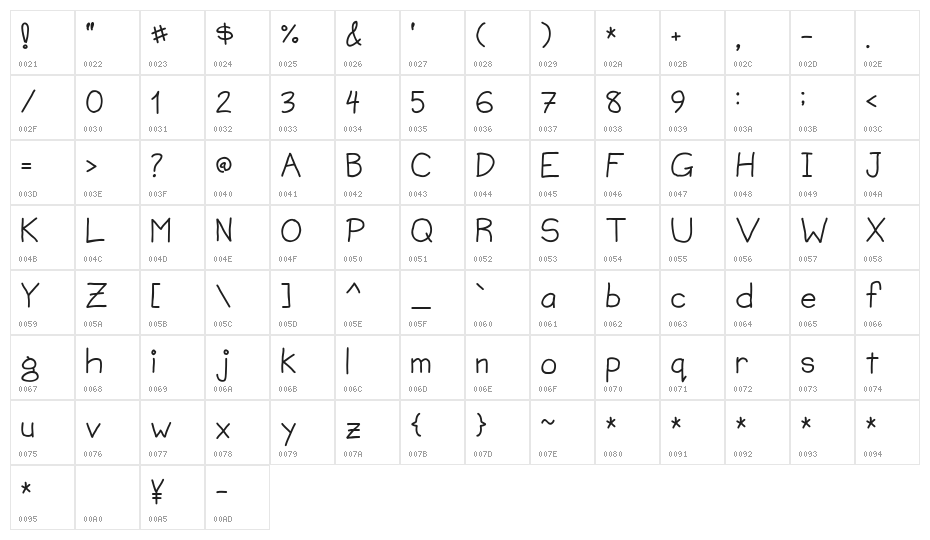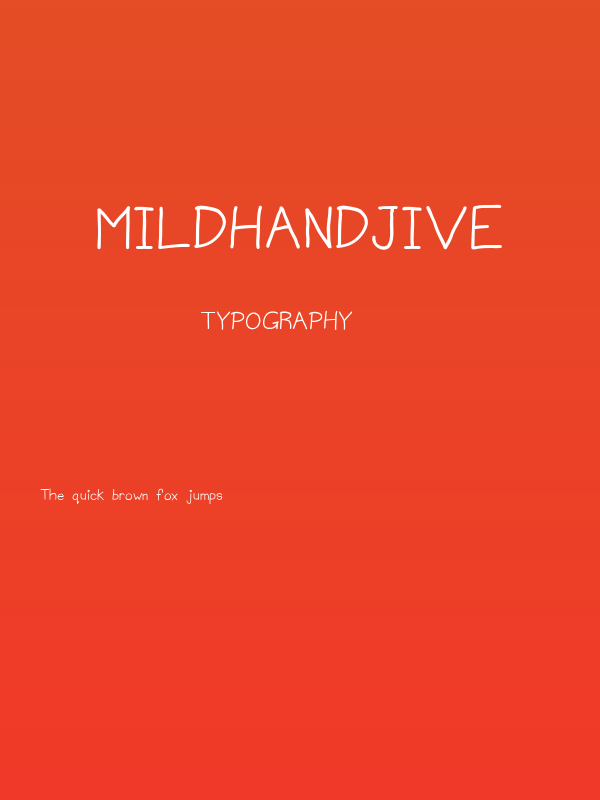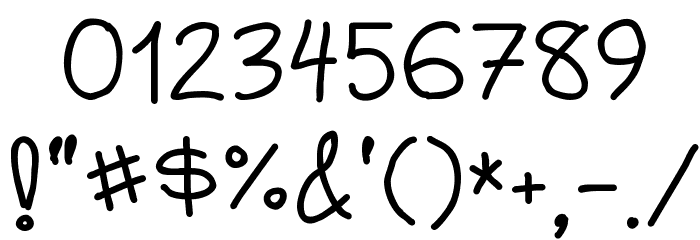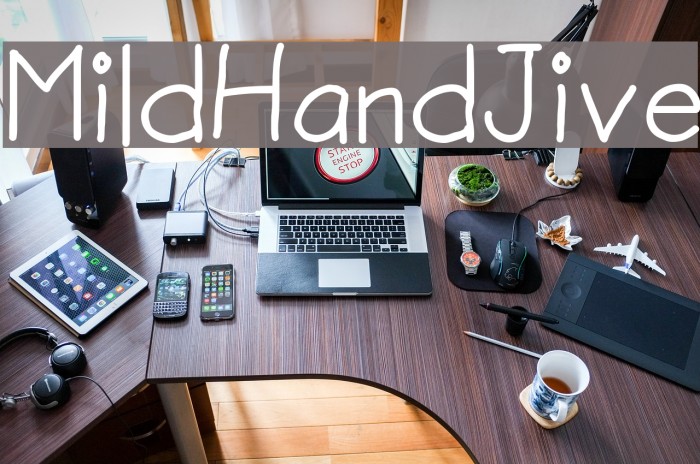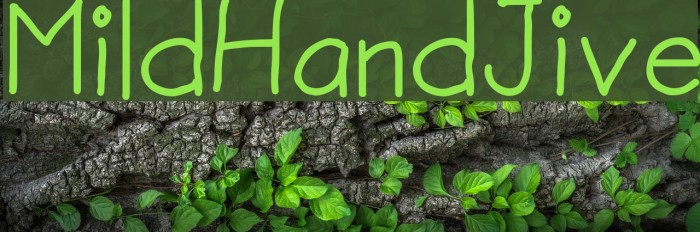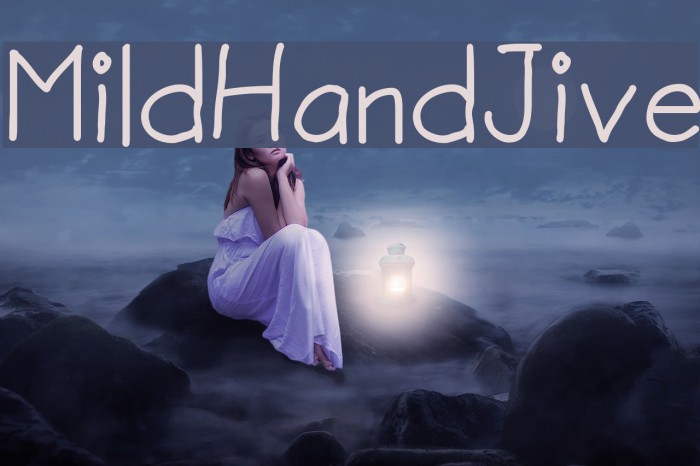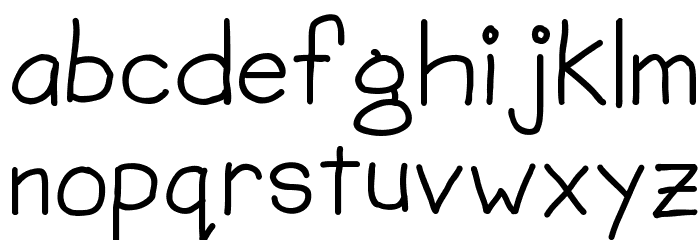
MildHandJive Font
MildHandJive Description
This font exudes a playful and casual handwritten style, characterized by its smooth, rounded strokes and slightly irregular letterforms that mimic natural handwriting. The uppercase and lowercase letters maintain a consistent flow, with a friendly and approachable appearance. The numerals and special characters are crafted with the same whimsical touch, ensuring uniformity across the character set. Its informal style makes it ideal for projects that require a personal, human touch, such as greeting cards, invitations, or children's book illustrations. The font's legibility is enhanced by its balanced spacing and moderate contrast, making it suitable for both digital and print media.
| Overall Style | Casual, Playful |
| Use Case | Headlines, Informal text, Creative projects |
| Proposed Projects | Ideal for greeting cards, invitations, children's books, and personal branding projects. |